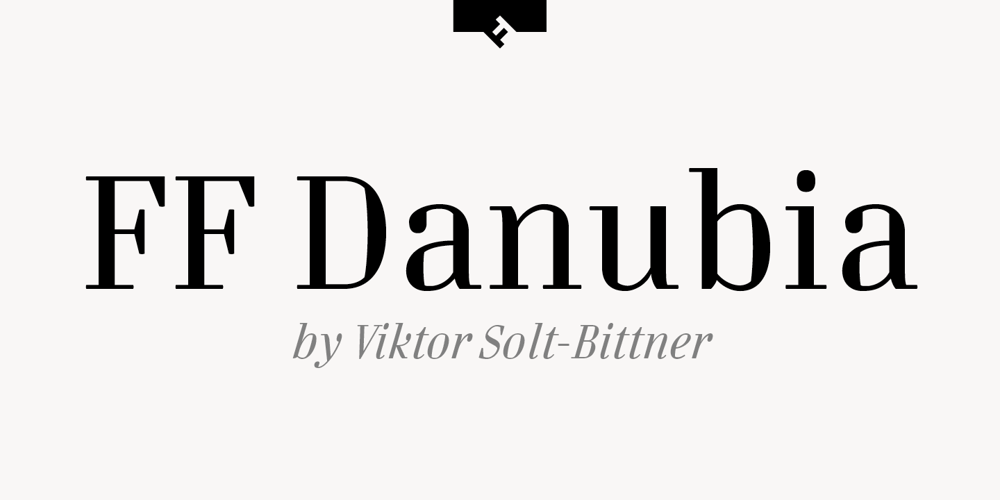
FF Danubia Font Family was designed by Viktor Solt-Bittner and published by FontFont. FF Danubia contains 5 styles and family package options. Austrian type designer Viktor Solt-Bittner created this serif FontFont in 2002. The family has 5 weights, ranging from Regular to Extra Bold (including italics) and is ideally suited for advertising and packaging, festive occasions, film and tv as well as logo, branding and creative industries. FF Danubia provides advanced typographical support with features such as ligatures, alternate characters, and case-sensitive forms. It comes with a complete range of figure set options – oldstyle and lining figures, each in tabular and proportional widths. This FontFont is a member of the FF Danubia super family, which also includes FF Danubia Script.